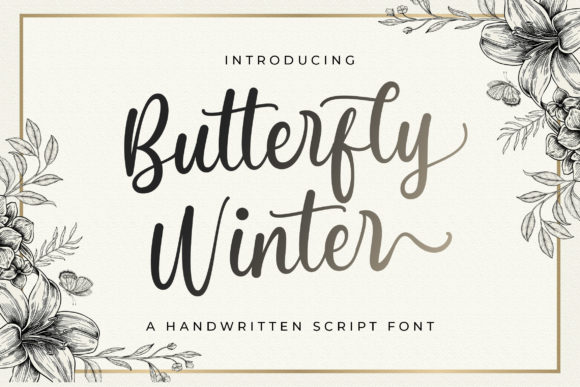
Unleash your creative vision with Butterfly Winter, a captivating script font family that exudes elegance and charm. StringLabs's skillful craftsmanship has meticulously designed each character to evoke a sense of harmony and visual appeal, making it the perfect choice for modern designers seeking a touch of finesse in their projects.
Journey through a world of creativity with Butterfly Winter, a font that effortlessly adds a touch of sophistication to any design endeavor. Its delicate strokes and graceful curves dance across the page, evoking emotions and capturing hearts. Experience the allure of Butterfly Winter, a font that transforms your words into works of art, leaving a lasting impression on all who encounter them.
Embrace the power of PUA encoding, a feature that grants you effortless access to a treasure trove of glyphs and swashes. Unleash your imagination and explore endless possibilities, crafting designs that resonate with individuality and style. Butterfly Winter empowers you to express your unique voice through typography, leaving an indelible mark on the world.